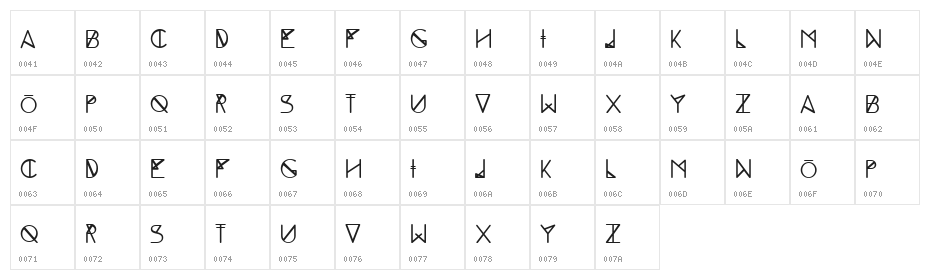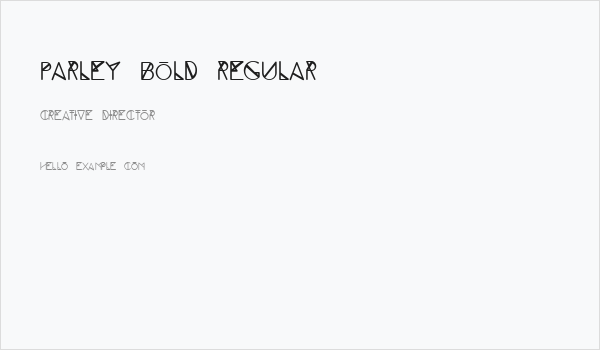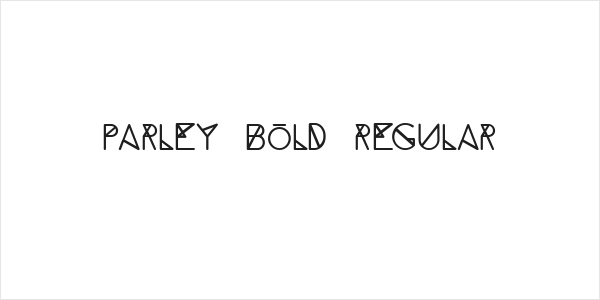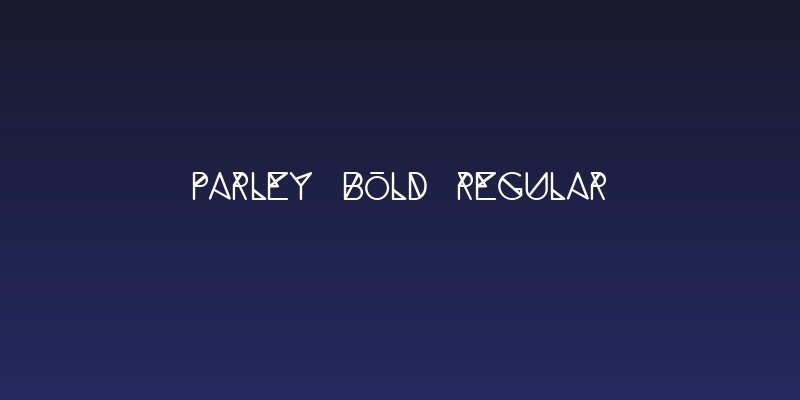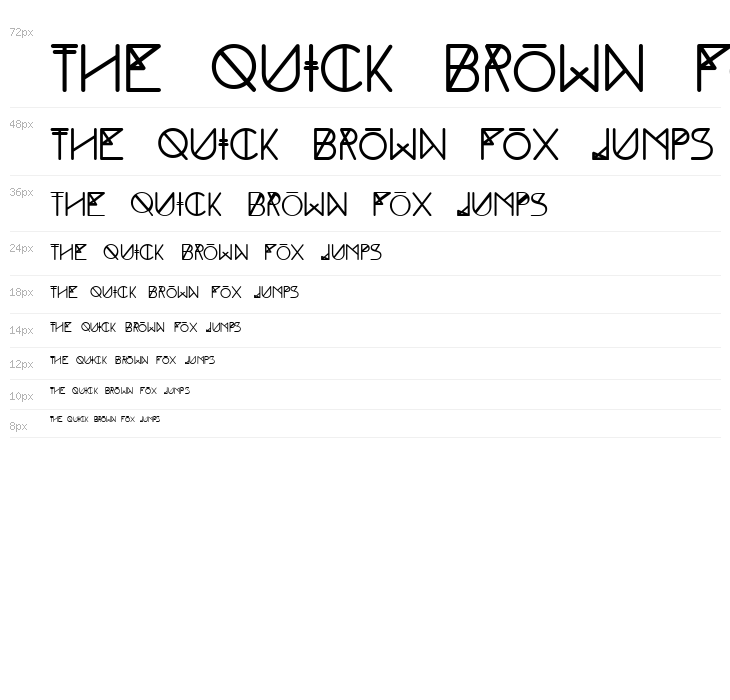
Parley bold Regular Font
Parley bold Regular Description
This font features a unique, geometric design with a modern twist. The characters are composed of bold, angular lines, creating a sense of movement and energy. Each letter is distinct, with sharp edges and a futuristic aesthetic. The uppercase letters are particularly striking, with some characters incorporating diagonal lines and unexpected angles. The overall look is both innovative and stylish, making it suitable for contemporary design projects. The font maintains a consistent weight throughout, ensuring readability while still offering a distinctive visual appeal.